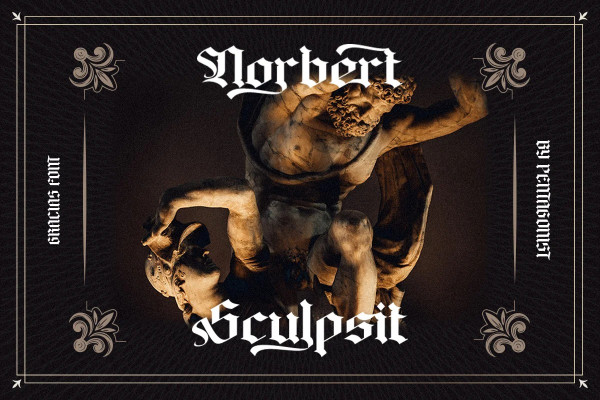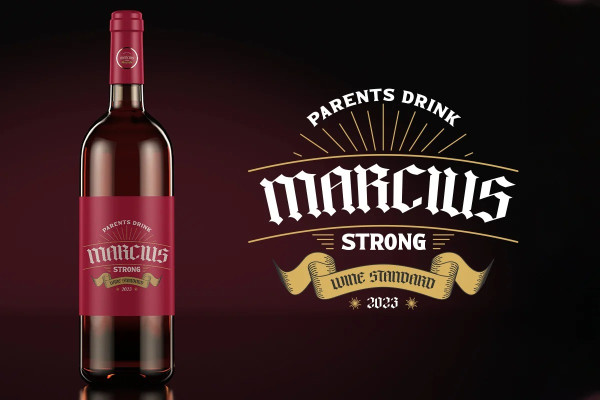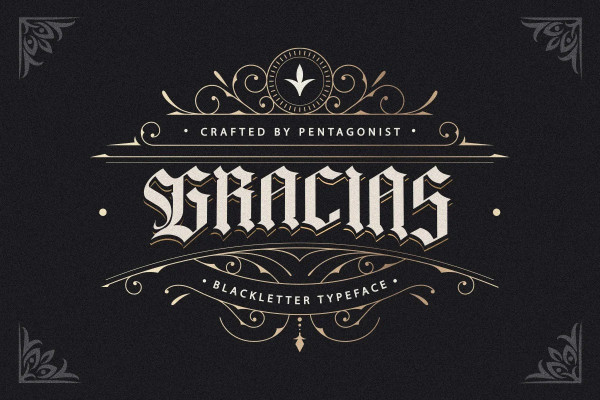
Gracias Font
Gracias Font Is A Vintage Display Typeface Inspired By Blackletter Characters.  This font is perfect for use on projects that need a futuristic, vintage, and elegant style.